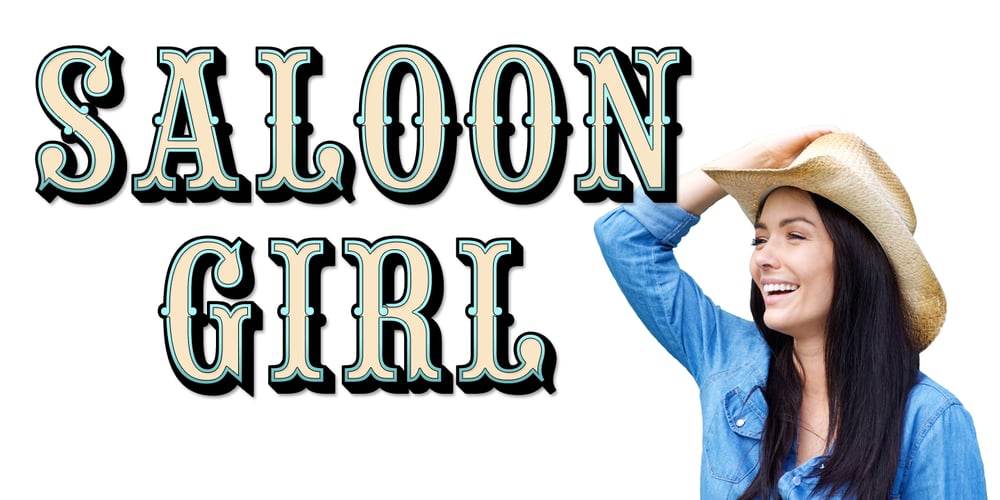
Saloon Girl Font Family was designed by Michael Hagemann and published by FontMesa. Saloon Girl contains 20 styles and family package options. Saloon Girl is a revival of an old classic font used by sign painters and includes the rarely seen lowercase. Saloon Girl comes with extra fill fonts, you will need an application that works in layers in order to use the fill fonts that come with FontMesa fonts.In the all new 2020 version we’ve added case sensitive forms, small caps and italics.In the 2024 version we’ve adjusted the numbers to be the same height as the capital letters. We’ve also added a slab serif on the top right of the number four to be a match for a famous football team logo in San Francisco. The original number four was kept as an alternate.